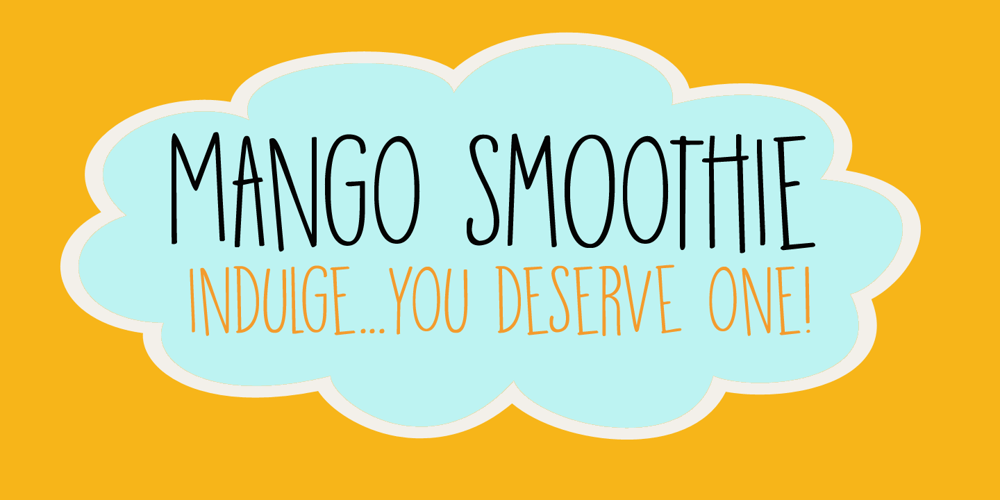
Mango Smoothie
Mango Smoothie font
Mango Smoothie Font Family was designed by David Kerkhoff and published by Hanoded. Mango Smoothie contains 1 styles and family package options. Summer’s almost here, so it’s time for some mango smoothies! Mango Smoothie is a tall, all caps, hand drawn font. A little shaky, a little uneven, but with a big taste and some creamy glyphs. Comes with multi-language support.